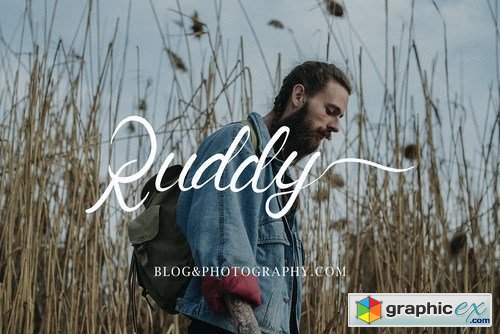
Jogtto Rauffal
Jogtto Rauffal font with new style, this font will perfect for many different project ex: quotes, logo, blog header, poster, banding, fashion, apparel, letter, invitation, stationery, etc...